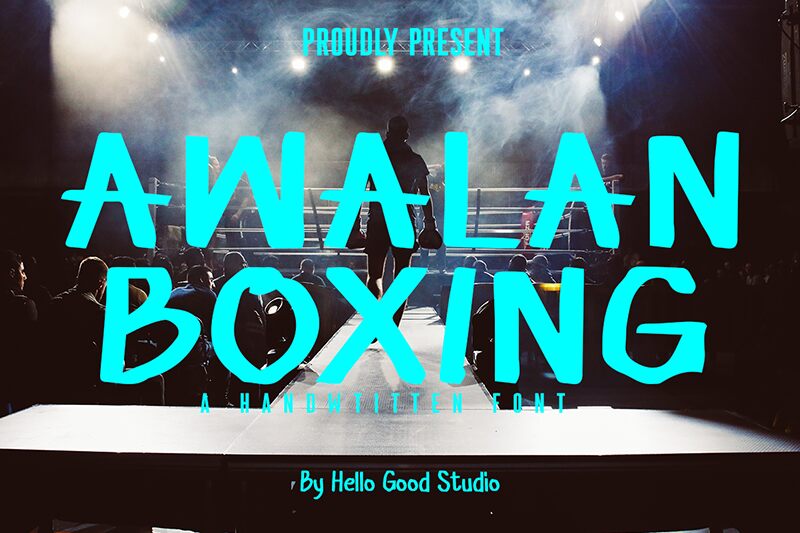
Awalan Boxing
Awalan Boxing font by Studio Hello Good is an organic handwritten font with a casual style and a laid-back natural feel. The alphabet’s characters are all lowercase, crafted with thick brush strokes at different angles for an authentic contemporary look. Its relaxed mood is appropriate for modern creative use in art-related projects.
This free handwritten font can be used in branding, logos, visual identity designs, business cards posters, magazines, social media posts, blogs backgrounds and covers (books or magazines). Further uses could include packaging design (specifically for cosmetic products), packaging products related to food and healthy living.